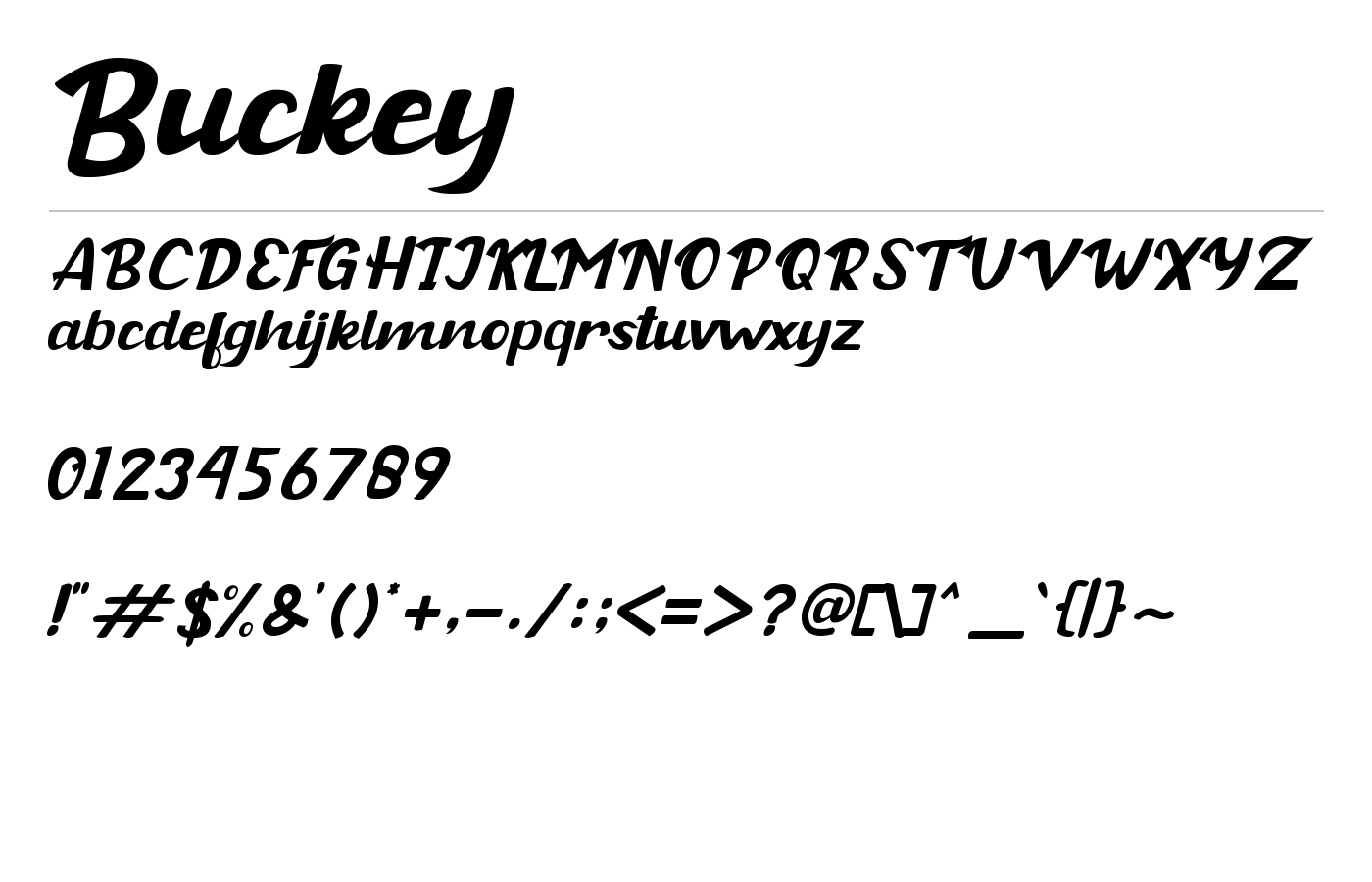
Buckey is a bold, medium-contrast script font with smooth, rounded strokes and a lively, handwritten feel. Its slightly condensed letterforms and fluid curves make it ideal for branding, headlines, and creative projects where a friendly yet confident personality is desired. This font works well for logos, packaging, and editorial designs that want to convey approachability and modern charm.
Buckey Font